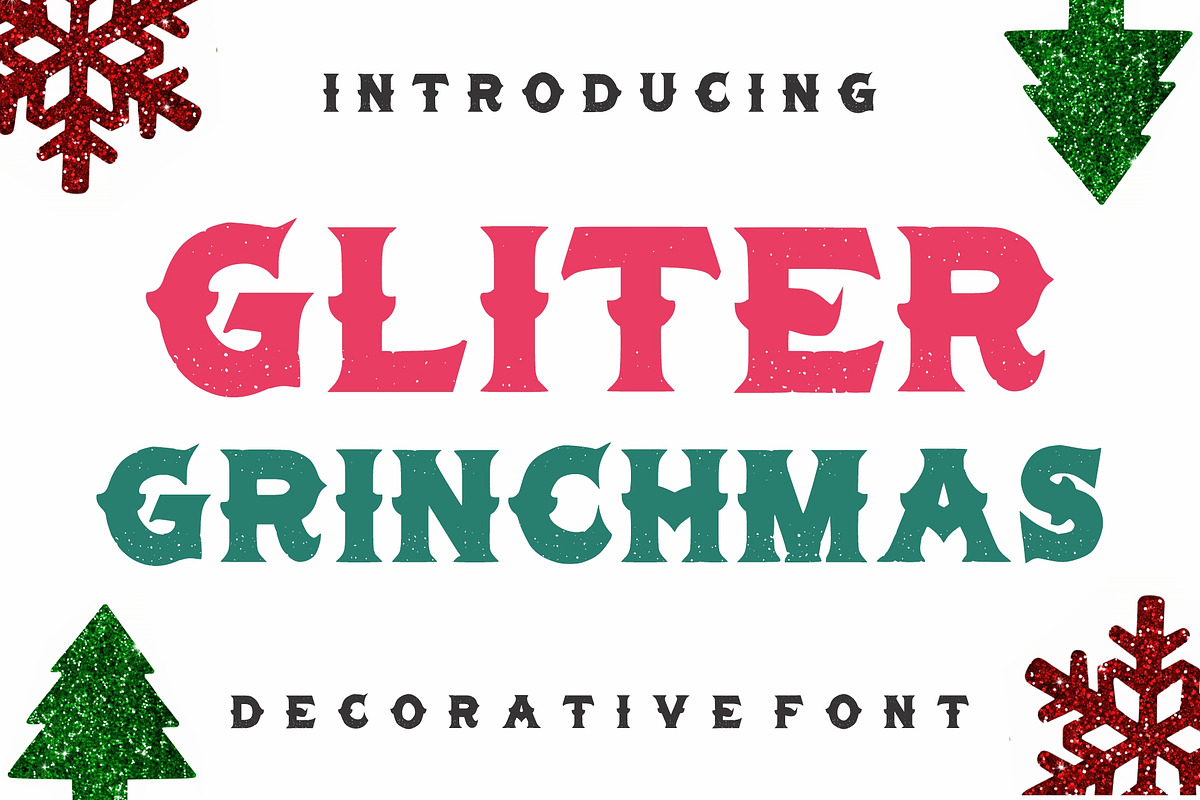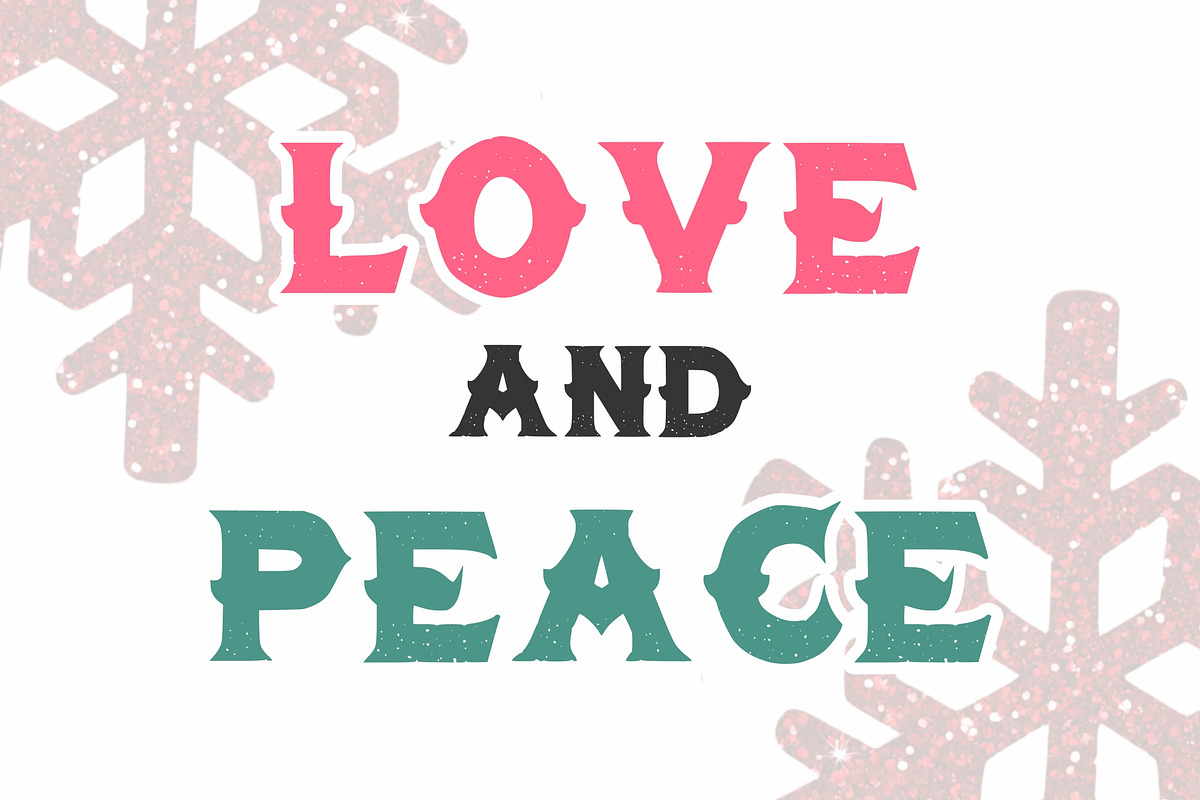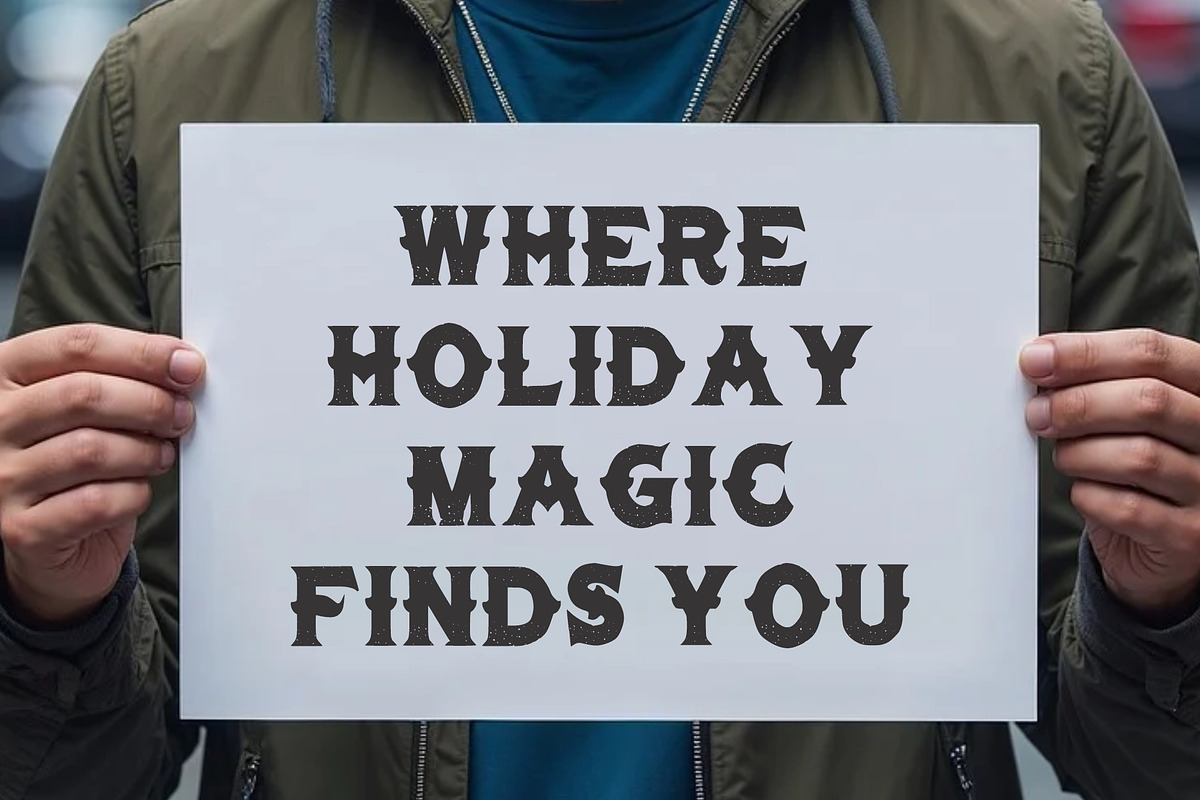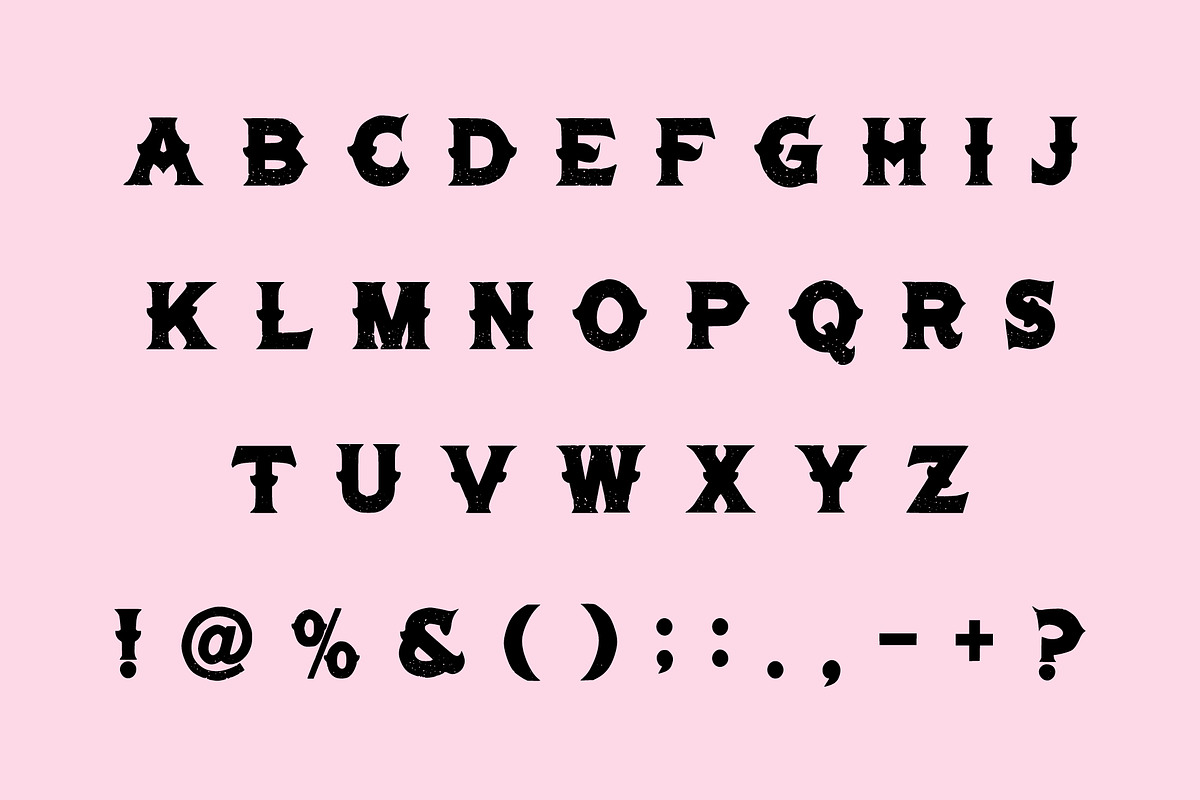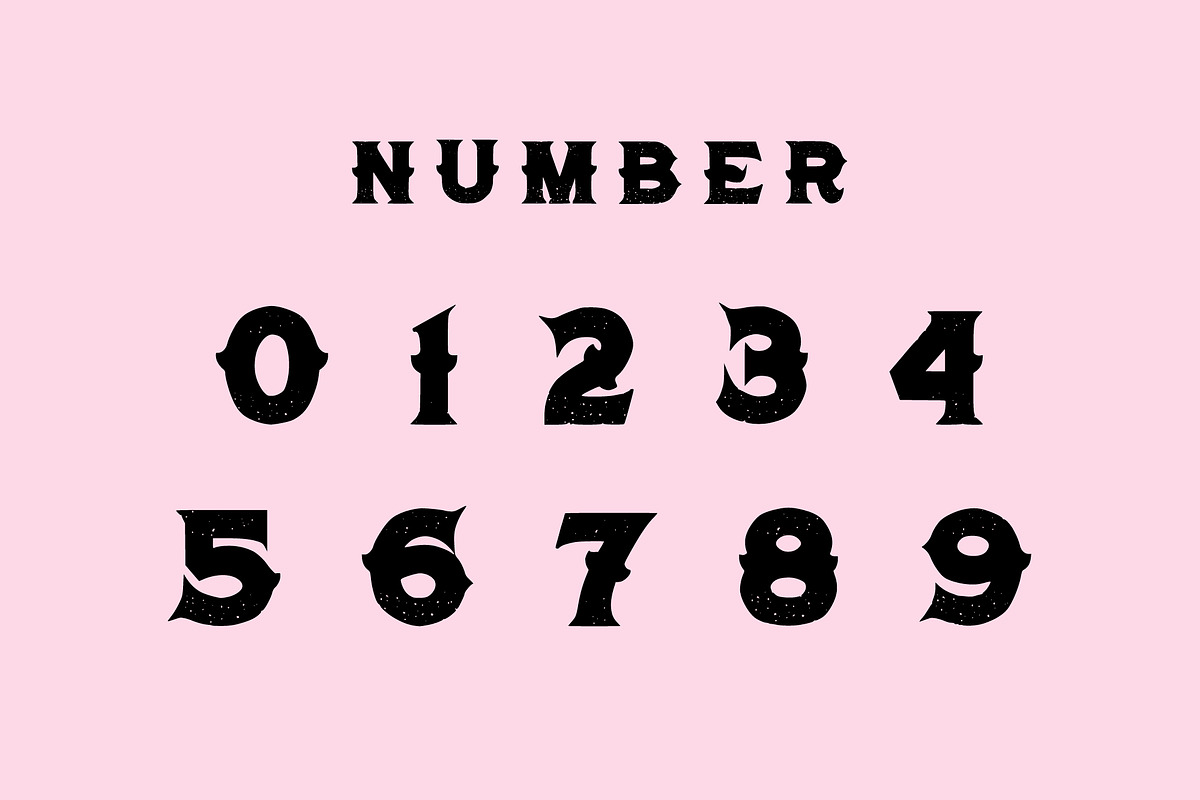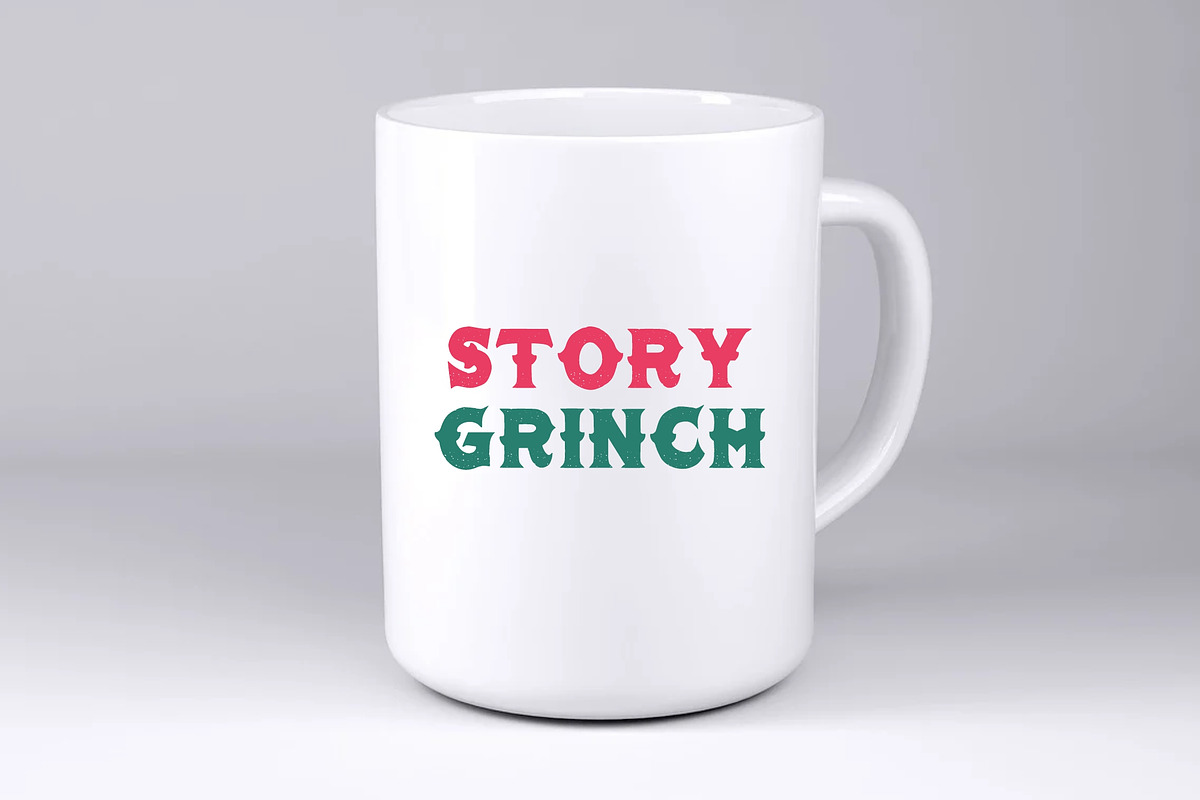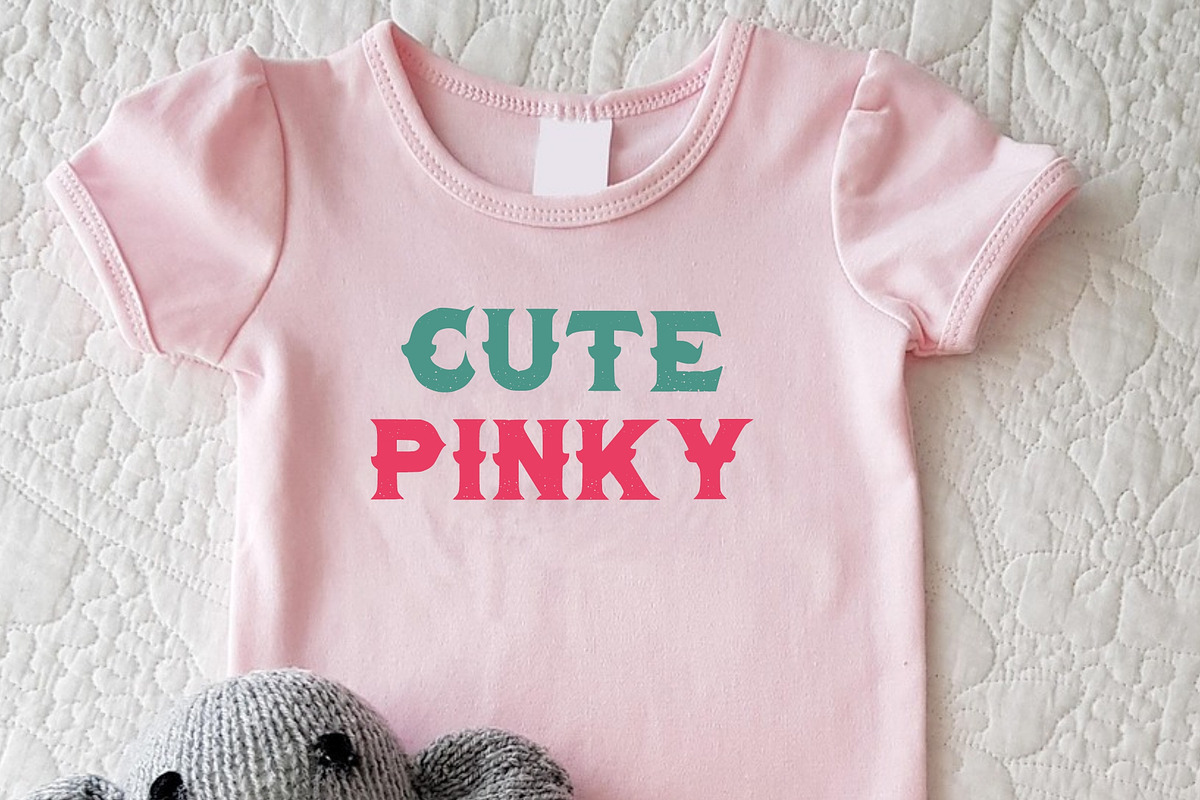
Gliter Grinchmas – Festive Christmas
Bring a fun and festive holiday atmosphere to your designs with Glitter Grinchmas! This bold decorative display font combines chunky vintage-inspired letterforms with a distressed texture for a unique Christmas aesthetic.